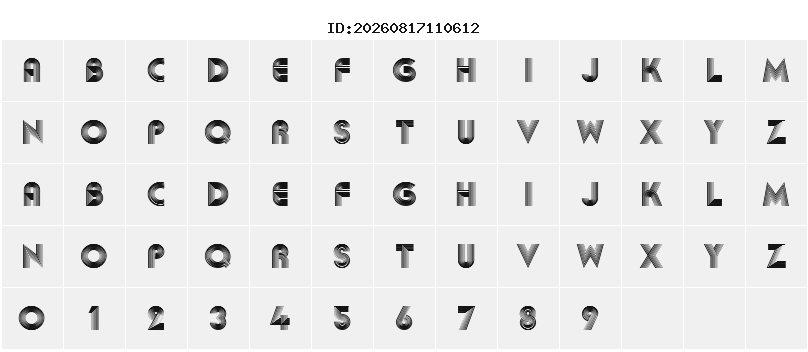
Solo Preview
About Solo.ttf
Solo.ttf is a modern, elegant sans-serif font designed for ultimate readability and visual harmony. Perfect for branding, headlines, web design, and print materials.